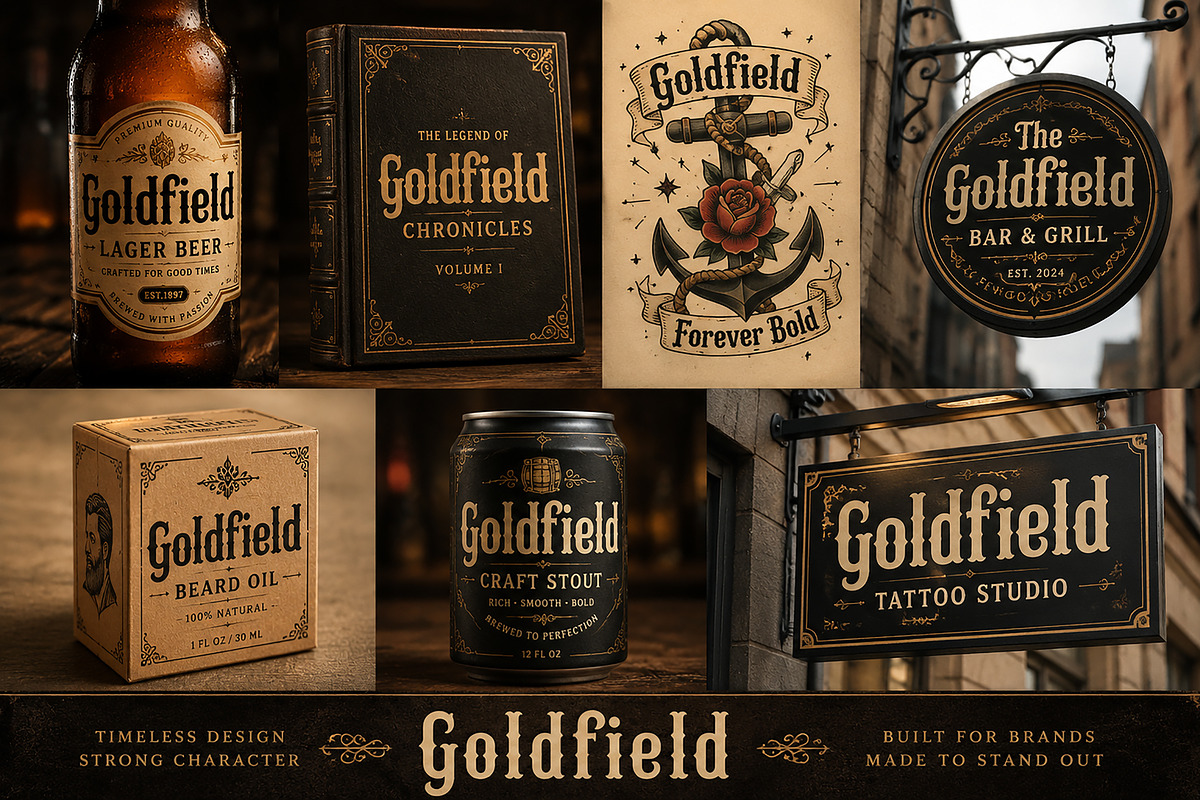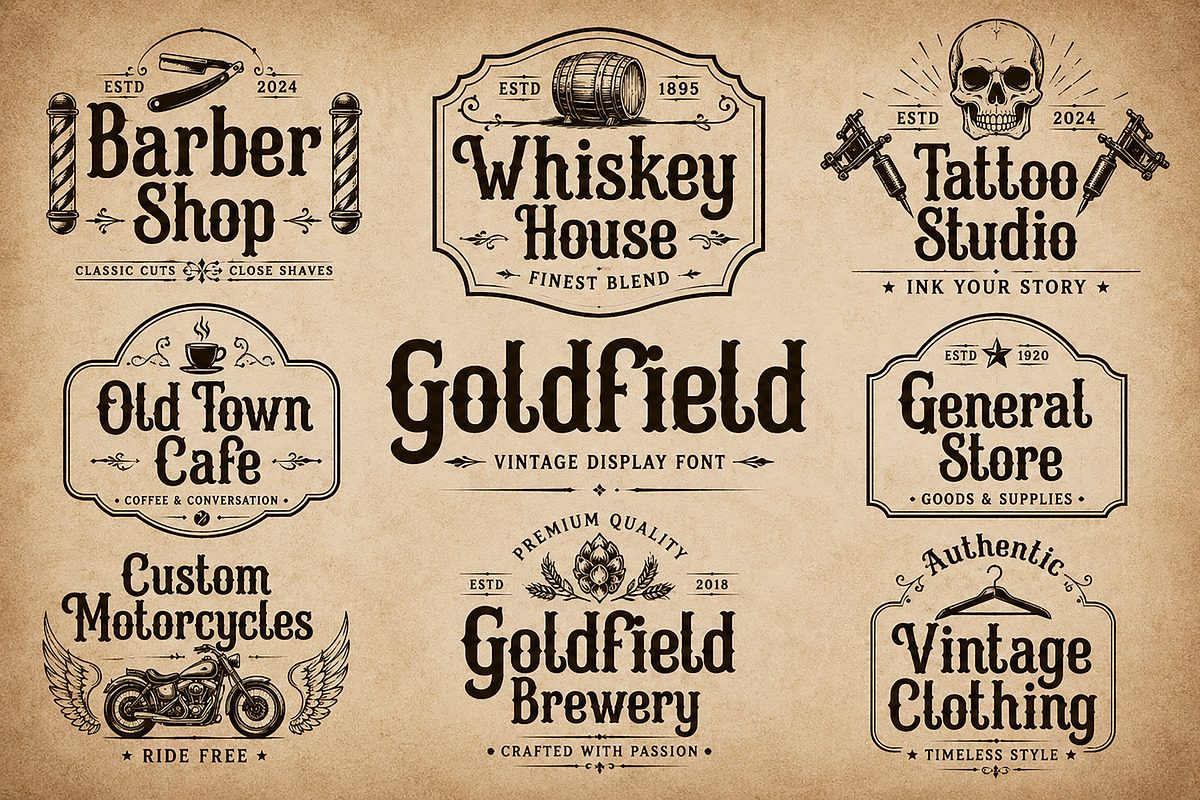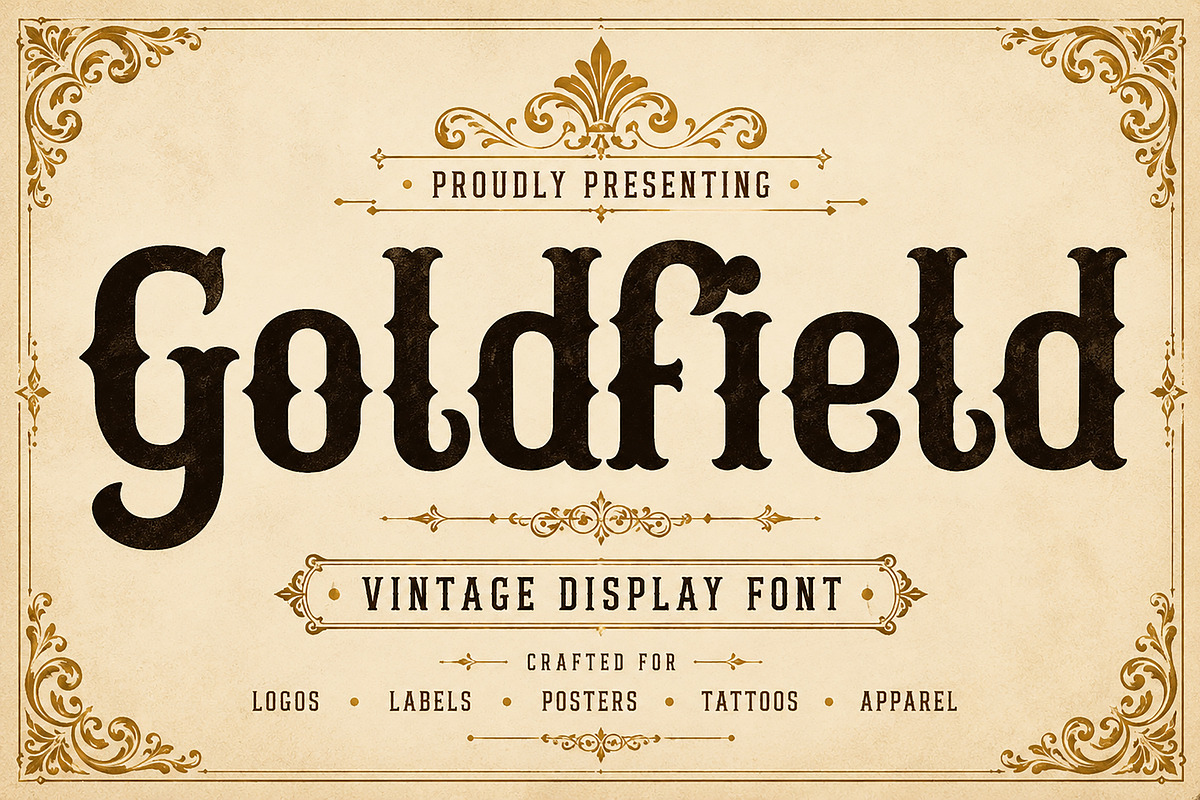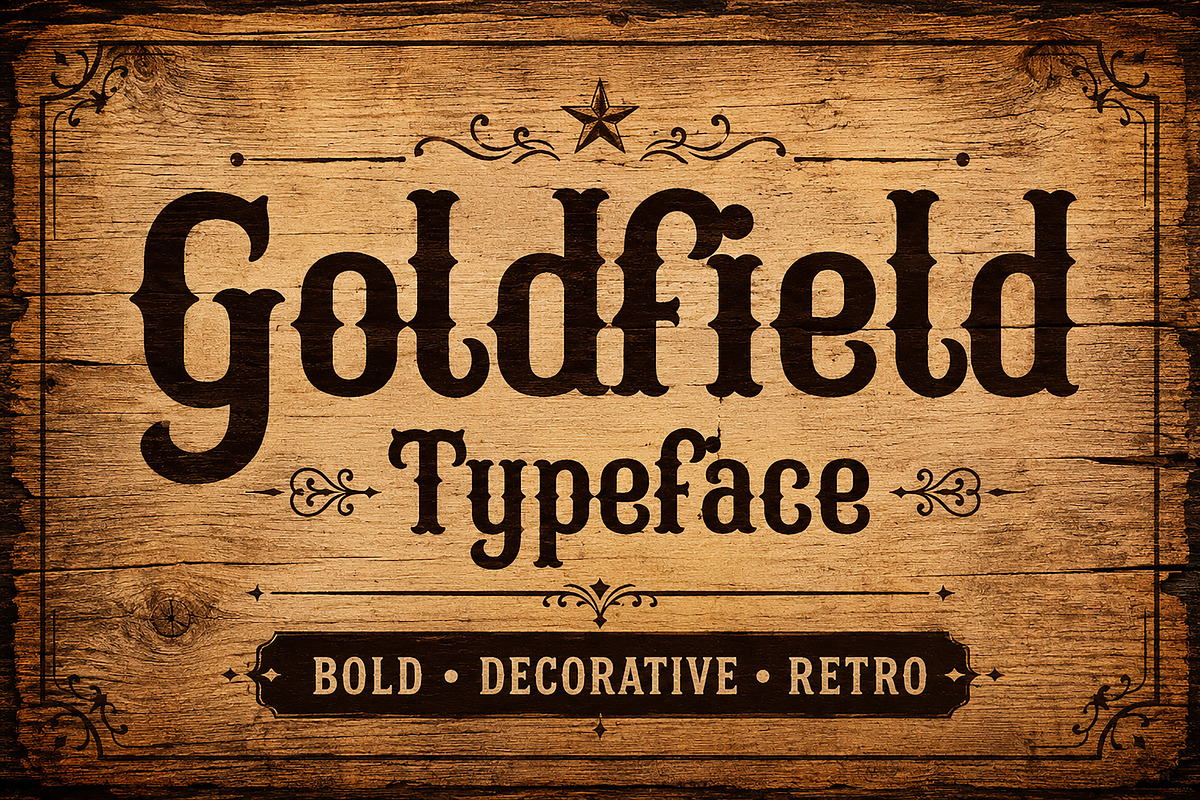
Goldfield
Goldfield – Vintage Retro Serif Font
Goldfield is a bold vintage serif font with a retro western-inspired style, perfect for logos, posters, branding, packaging, and nostalgic typography projects.
Goldfield is a striking vintage serif font inspired by classic retro typography and old-west aesthetics. Featuring bold curves, decorative edges, and strong character shapes, this typeface delivers a timeless and nostalgic feel with a modern polished finish.
Designed to stand out, Goldfield combines vintage charm with bold readability, making it ideal for branding projects that need personality and impact. Its unique letterforms create an authentic retro atmosphere that works beautifully across posters, labels, packaging, and logo designs.
Whether you're creating western-inspired branding, retro apparel graphics, café menus, whiskey labels, or stylish editorial layouts, Goldfield adds warmth, confidence, and vintage character to your typography.
This font is perfect for designers looking to achieve a bold classic look while maintaining versatility and professional quality.
Vintage branding
Retro logos
Western-style designs
Packaging design
Poster design
Café & restaurant branding
Apparel & merchandise
Editorial headlines
Retro typography projects
Uppercase letters
Lowercase letters
Vintage serif style
Retro western-inspired design
Bold and decorative letterforms
Strong visual impact
Professional and versatile